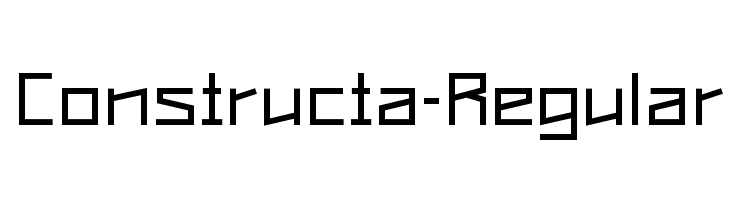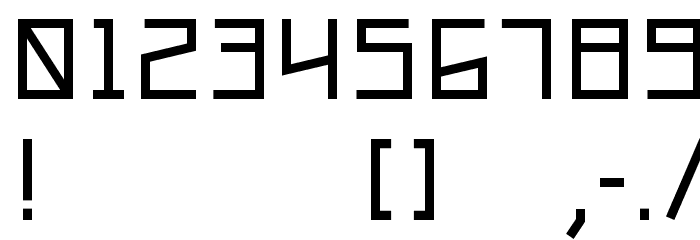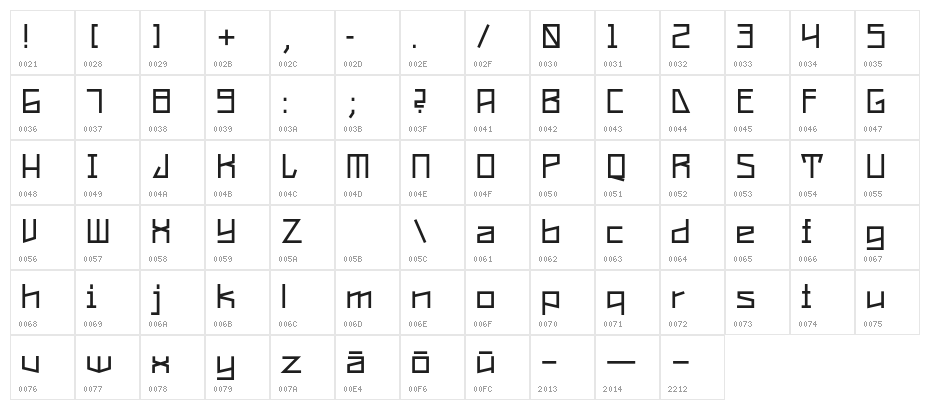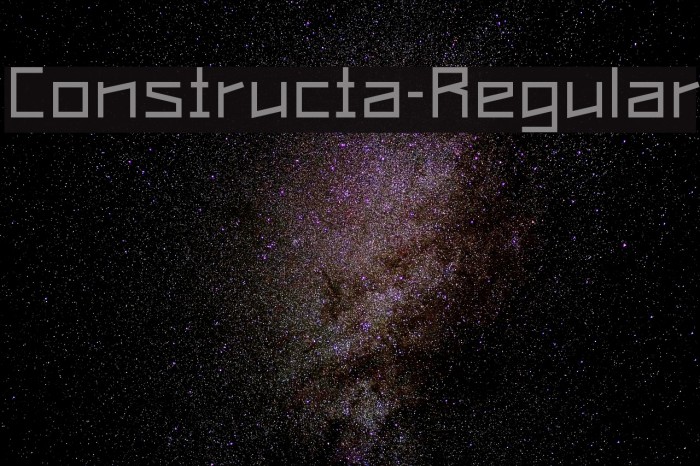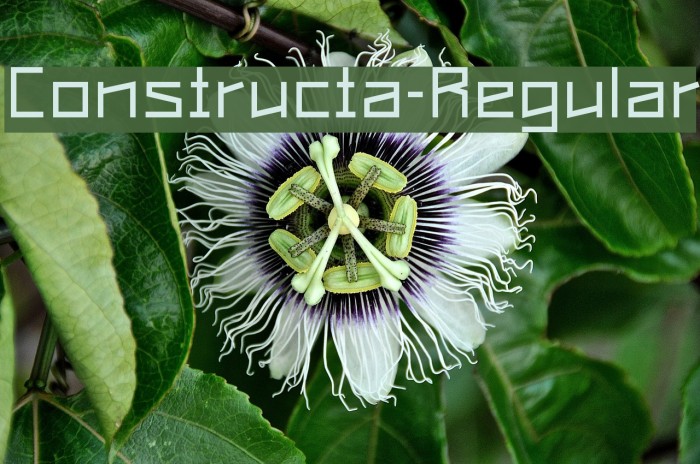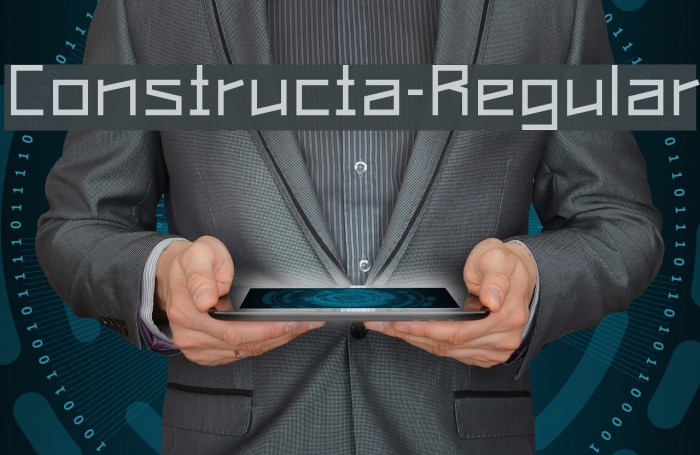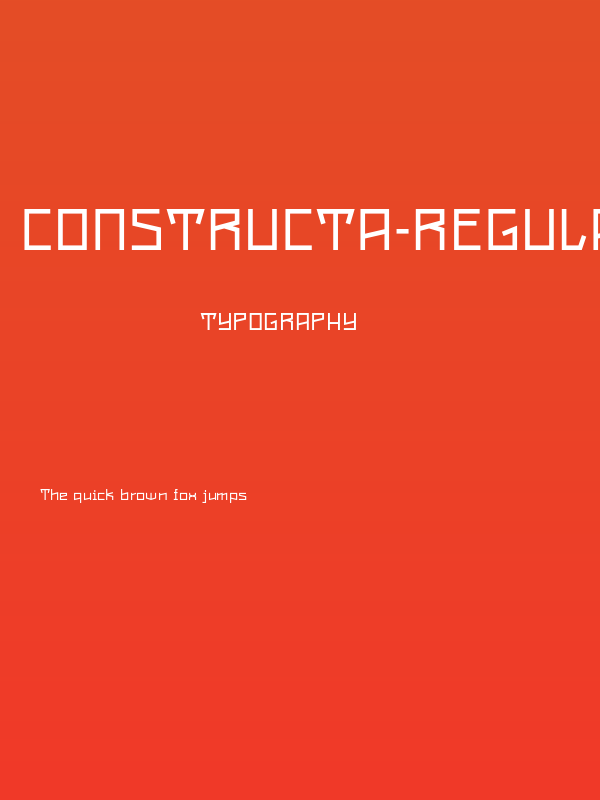
Constructa-Regular Font
Constructa-Regular Description
This font features a geometric and angular design, characterized by its sharp edges and distinct shapes. The uppercase letters exhibit a unique style with some characters incorporating triangular elements, such as the 'A' and 'V'. The lowercase letters maintain a consistent geometric form, providing a cohesive look across the alphabet. Numerals are similarly styled, with a clear and structured appearance. The special characters are designed to match the overall angular theme, ensuring uniformity throughout. This font's modern and structured design makes it suitable for projects requiring a bold and distinctive typeface.
| Proposed Projects | Ideal for modern branding, tech-related designs, architectural publications, and futuristic themes. |